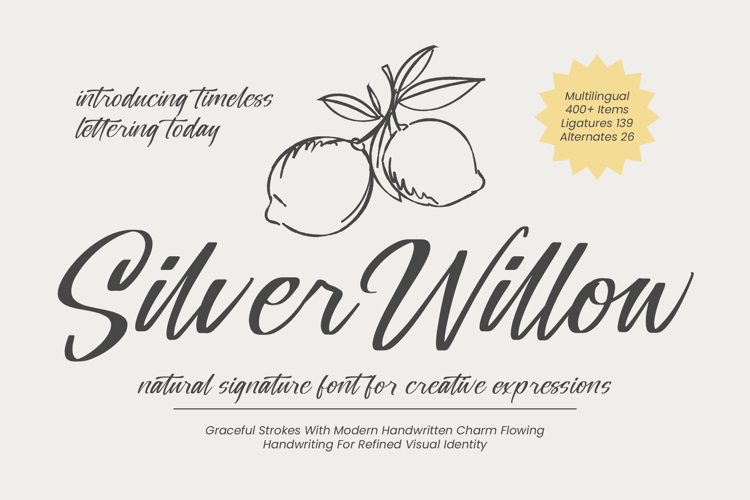
Silver Willow - Natural Signature Font
Elevate your brand's visual storytelling with an unmatched sense of elegance. Silver Willow - Natural Signature Font is a masterclass in sophisticated typography, blending graceful strokes with a modern handwritten charm. This typeface captures the essence of authentic calligraphy, offering a fluid rhythm that breathes life into any creative composition. Its organic flow and refined aesthetics ensure that your message is delivered with a , high-end touch that resonates with discerning audiences.
Break through linguistic barriers and expand your creative horizons across the globe. With its extensive multilingual support, Silver Willow - Natural Signature Font adapts seamlessly across global markets, making it incredibly versatile for international projects. Featuring over 400 glyphs, including a vast collection of 139 ligatures and 26 alternates, it provides the technical flexibility needed for high-stakes design. This robust character set ensures that your brand identity remains consistent and impactful regardless of the region.
Perfect for projects requiring a touch of exclusivity and bespoke craftsmanship. This typeface is the definitive choice for luxury branding, premium packaging, and high-end editorial design. Silver Willow - Natural Signature Font is perfect for creating bespoke logos, signature-style watermarks, and sophisticated wedding invitations. Its versatile nature also makes it an excellent fit for lifestyle photography, boutique signage, and social media graphics that demand a timeless lettering style with a contemporary edge.